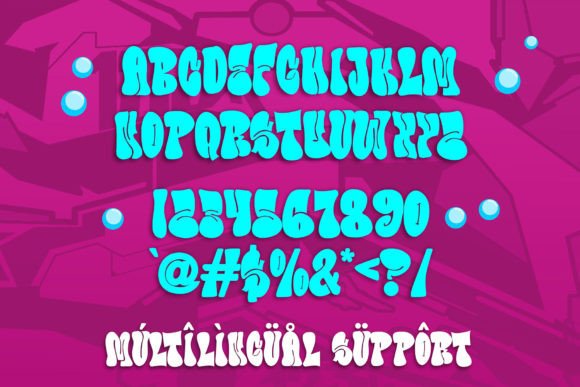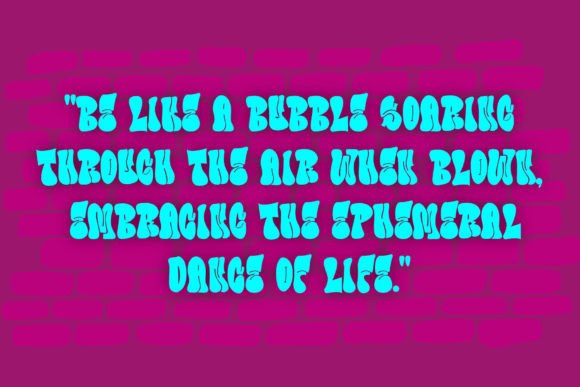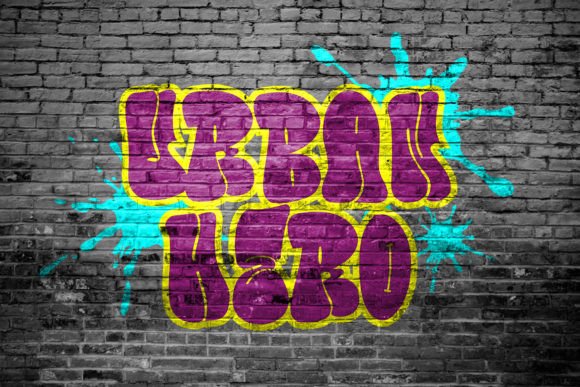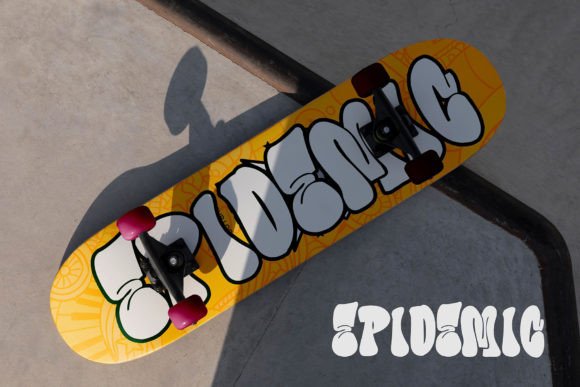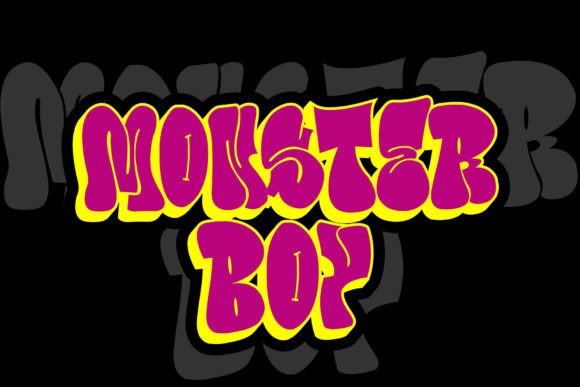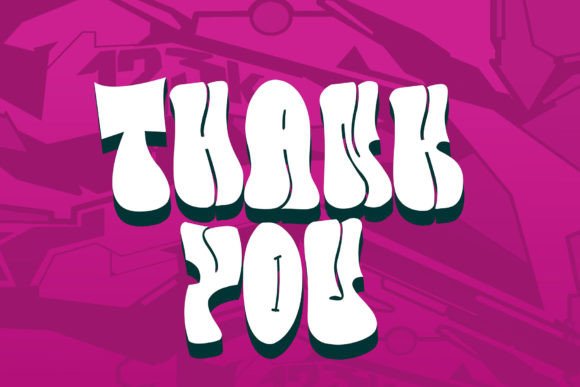
Unleash the Urban Edge with the Bubble Horns Graffiti Font
Have you ever been inspired by a bold, edgy design that screams attitude and street cred? Maybe it was a graffiti-covered wall, a rebellious music poster, or a streetwear brand that made you stop and take notice. Whatever sparked your creativity, we’re here to help you tap into that same energy with the “Bubble Horns Graffiti Font”. This urban graffiti font is designed to bring a touch of edginess to your projects, making it the perfect choice for music posters, apparel designs, shirts, and streetwear.
As a designer, you know that the right font can make all the difference in conveying your message and setting the tone for your brand. That’s why “Bubble Horns Graffiti Font” is a valuable addition to your design toolkit. Its unique style and bold look make it easy to create strong and powerful statements that grab attention and leave a lasting impression.
Bubble Horns Graffiti Font Key Features
- Font Family: Bubble Horns Graffiti Font is a unique, graffiti-style font with a bubble-like effect.
- Unique Characteristics: Features bold, playful lines and rounded edges, making it perfect for street art, graffiti, and urban designs.
Bubble Horns Graffiti Font Review
Overall, I was excited to dive into the Bubble Horns Graffiti Font, and I’m glad I did! ✨ The font’s playful and dynamic vibe immediately caught my attention, making it perfect for those looking to add a fun and youthful touch to their designs. ✨ The bubbly texture and creative letterforms bring a unique and eye-catching element to any project.
- ✨ Playful and dynamic design that’s perfect for adding a youthful touch
- ✨ Unique bubbly texture and creative letterforms
- ✨ Supports a wide range of languages
However, there are some limitations to consider. ⚠️ The font can be quite busy and overwhelming in large blocks of text, making it difficult to read. ⚠️ Additionally, the font’s bold weights may not be suitable for all design applications, as they can come across as too loud or overpowering.
Overall, I’d give the Bubble Horns Graffiti Font 3.5 out of 5 stars. While it’s a great addition to any design toolkit, it’s essential to use it thoughtfully and in the right context to get the best results. With some careful consideration and restraint, this font can be a real showstopper in the right project.
The Bubble Horns Graffiti Font is ideal for creating eye-catching titles, headings, and captions in various design projects, including posters, flyers, and social media graphics.